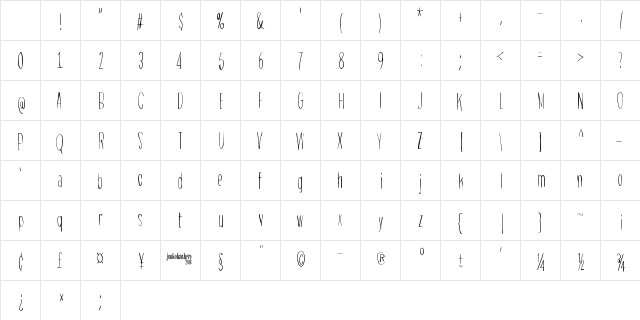
Complete Raccoon Regular glyph index. Displaying only characters natively supported by Raccoon Regular font.
Raccoon is a composed and adaptable typeface that performs quietly and consistently across a wide range of design contexts.
Who designed the Raccoon Regular font?